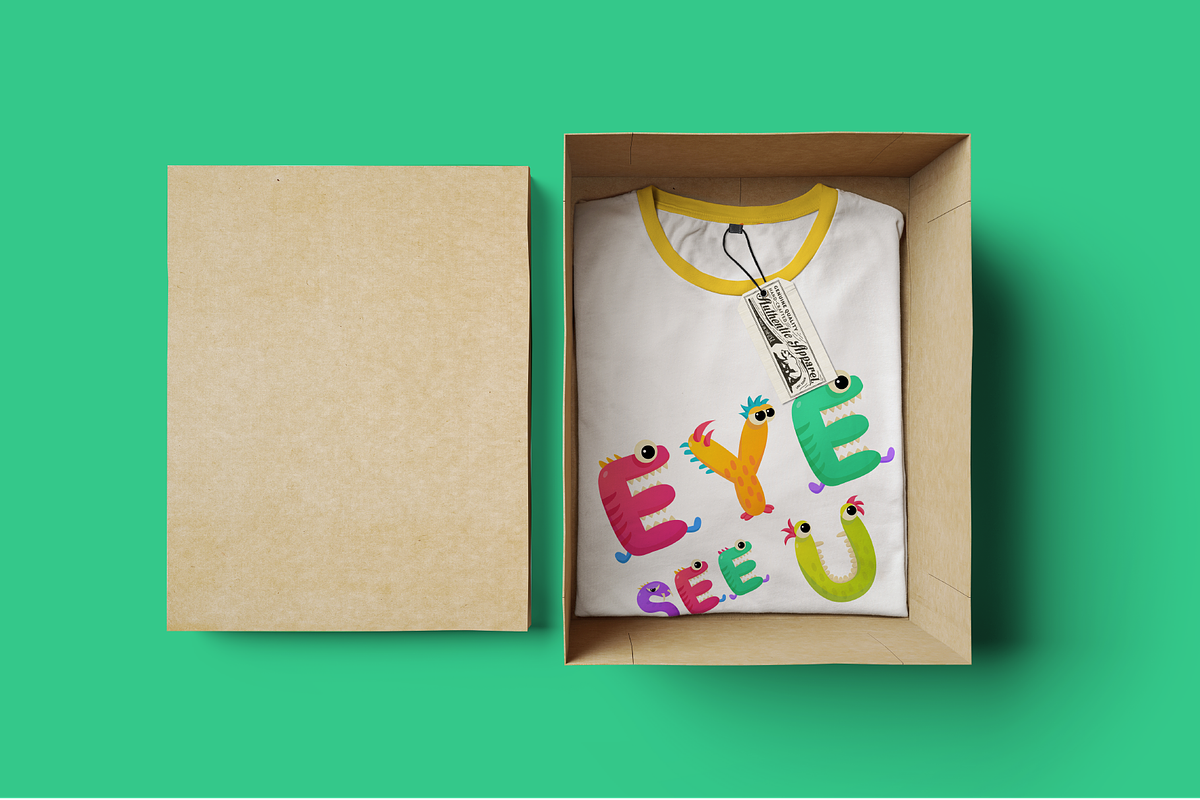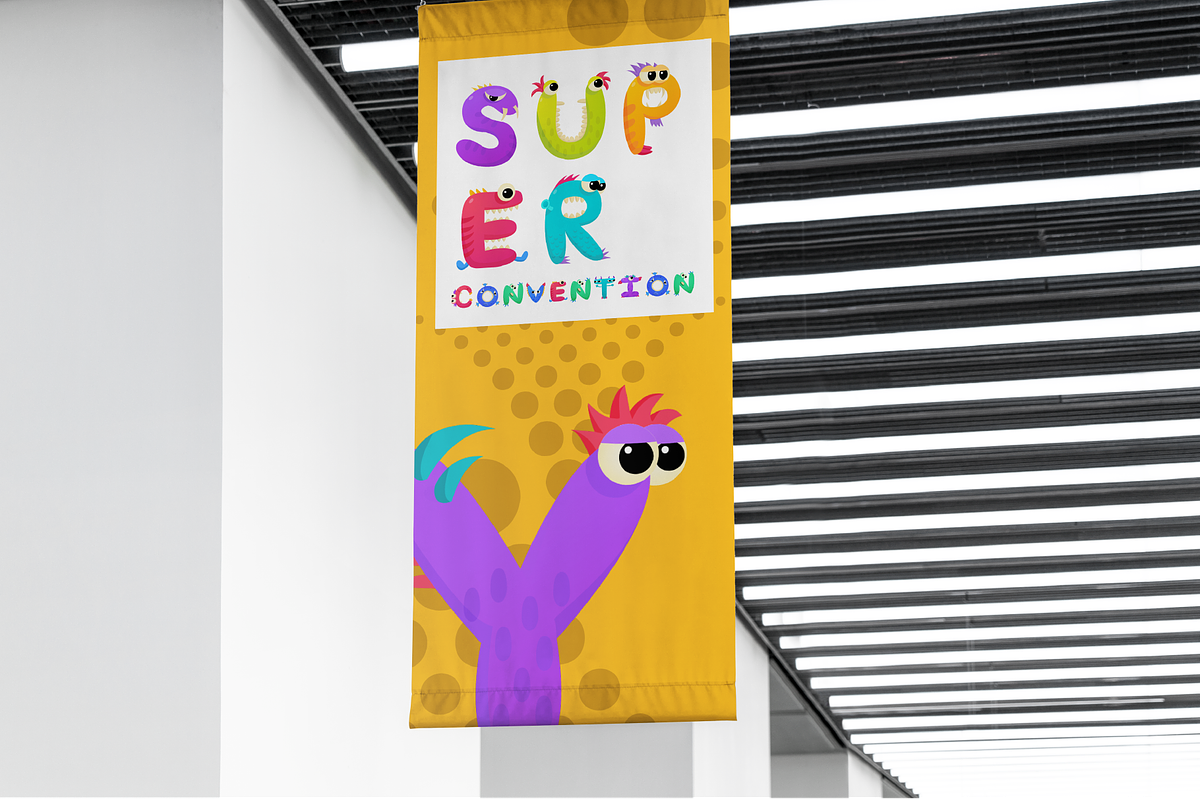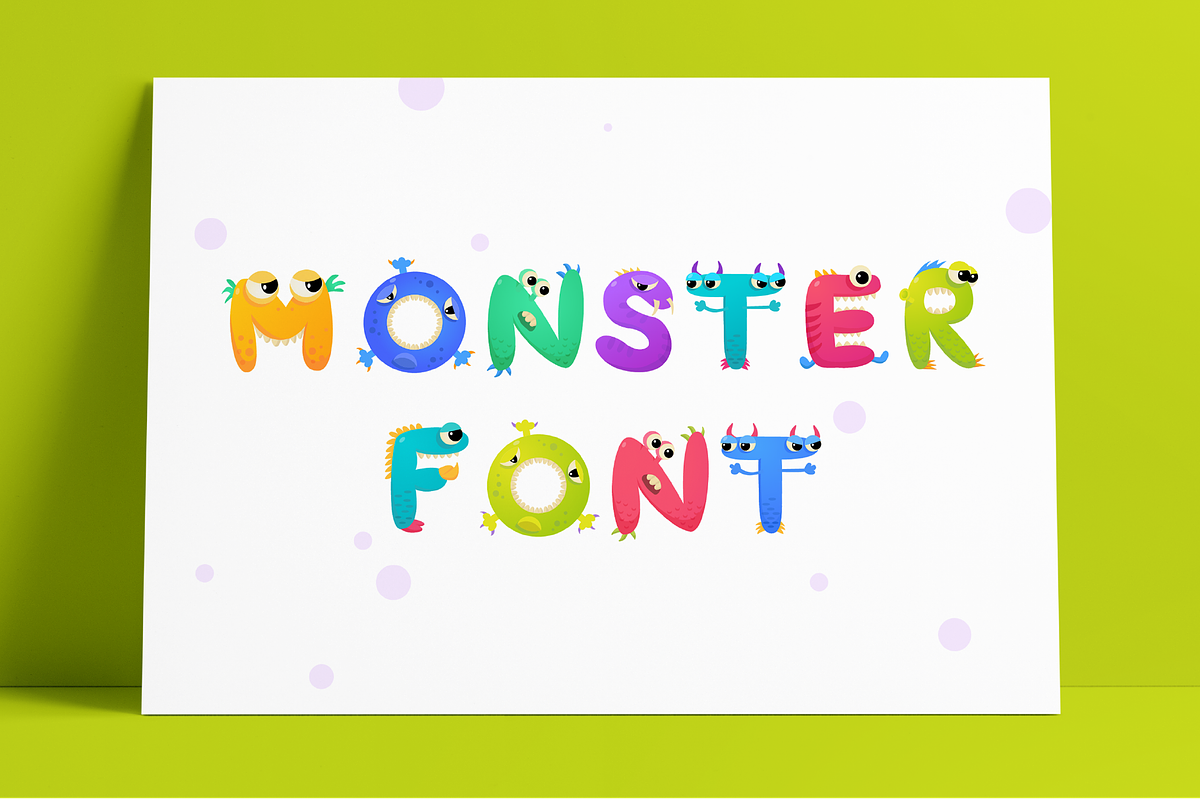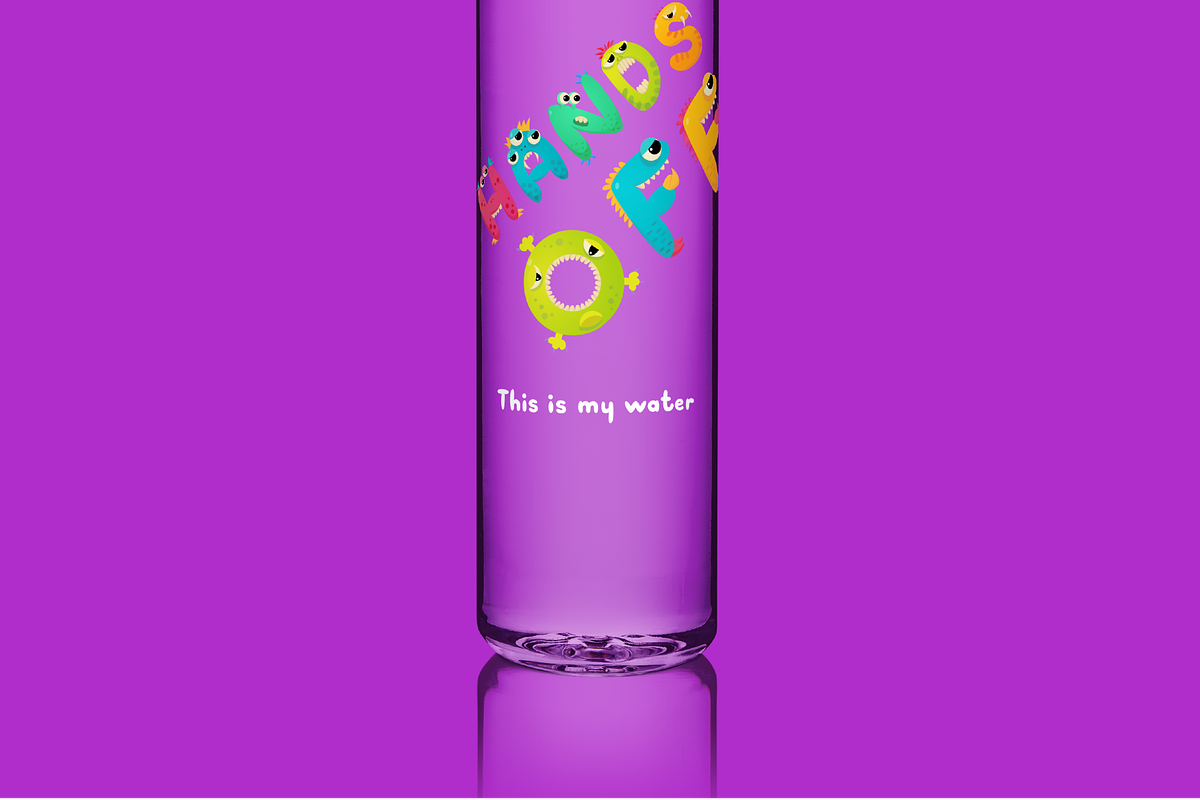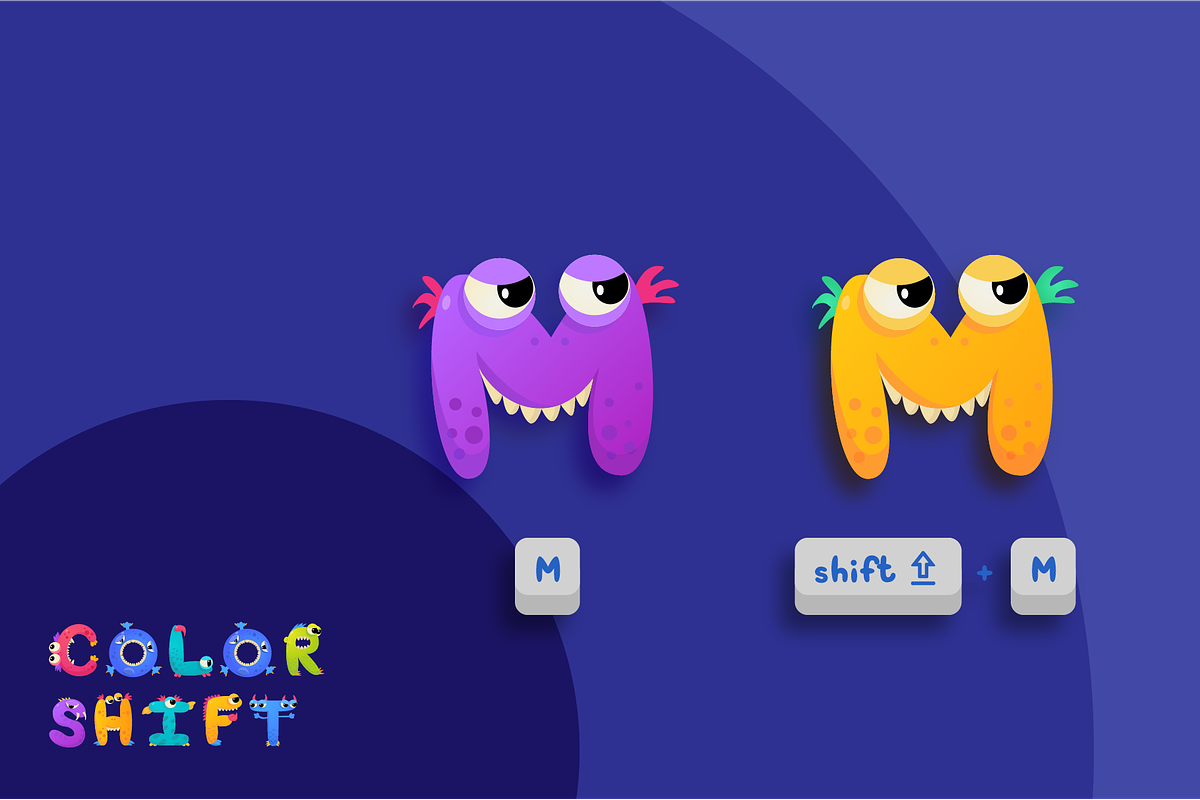
Monster Font - Color Vector Font
Monster Font is a fresh funny typeface which makes it perfect for a variety of application including Social Posts, Prints and Packaging.
Works best with Children's Greetings and Halloween Invites!
Monster Font - Color Vector Font by kaustubhadhav fits naturally into Branding, posters, packaging, typography.